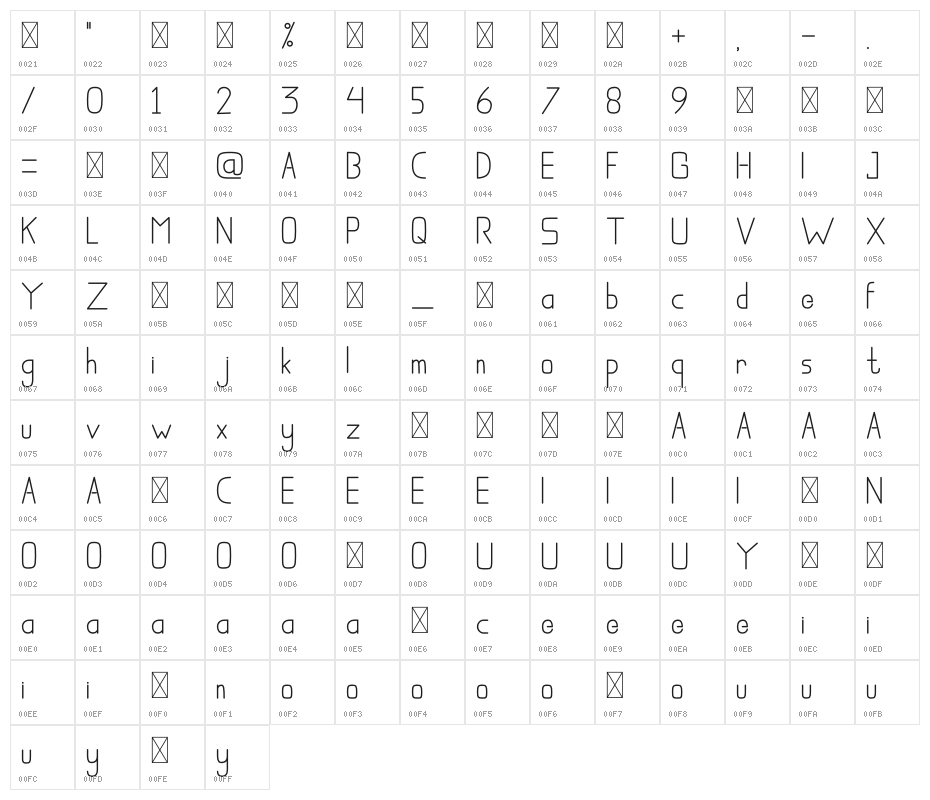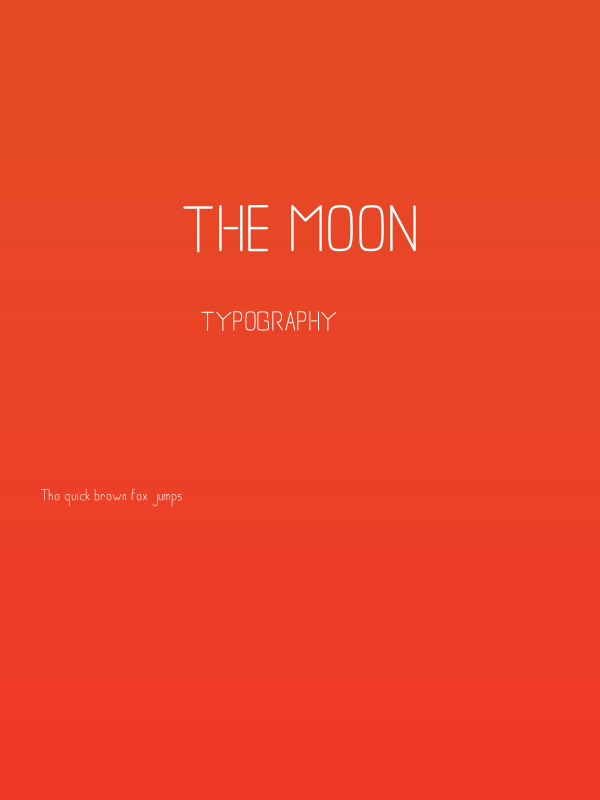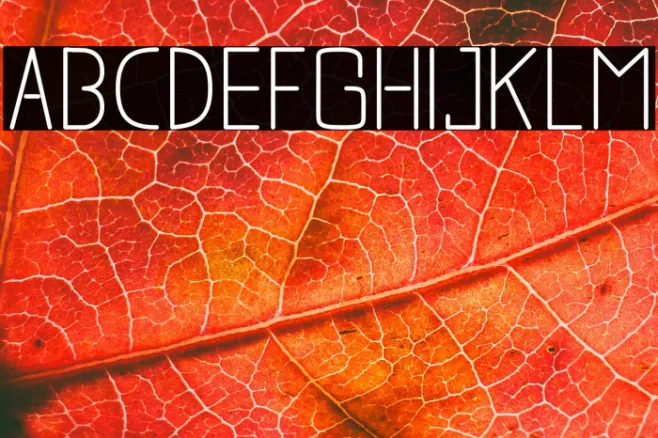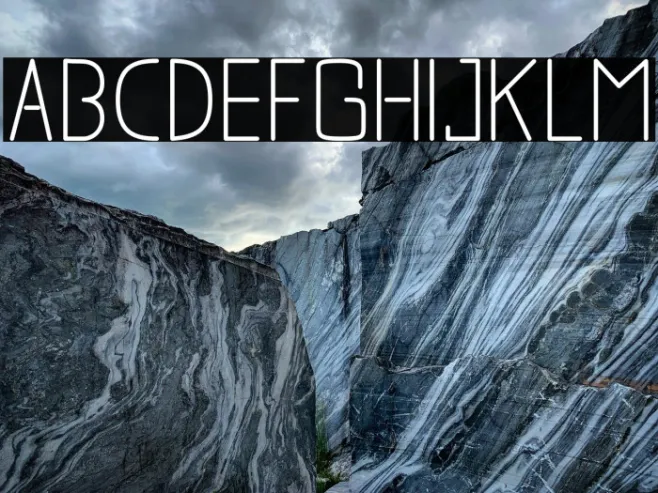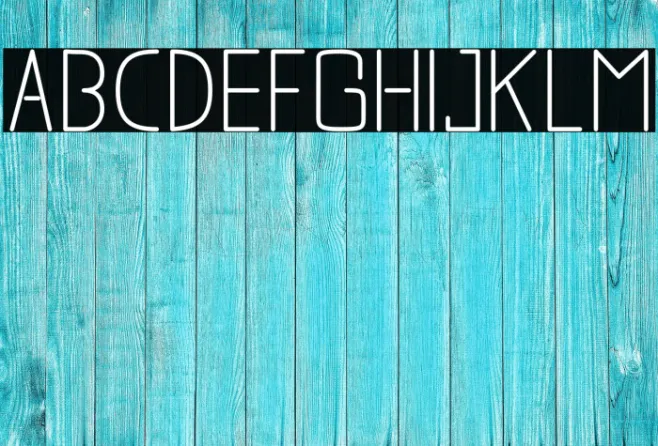
The Moon Font
The Moon Description
This font features a clean, geometric design with a modern aesthetic. The uppercase letters are tall and narrow, with consistent stroke widths that give a uniform appearance. The lowercase letters maintain the geometric style, with rounded edges that add a touch of softness. The numerals are clear and legible, matching the overall style of the alphabet. Special characters are included, maintaining the same geometric and minimalistic design. The font's simplicity and clarity make it versatile for various design applications.
| Use Case | Headlines, Logos, Digital Media |
| Proposed Projects | Ideal for branding, advertising, and digital media projects where a modern and clean look is desired. |